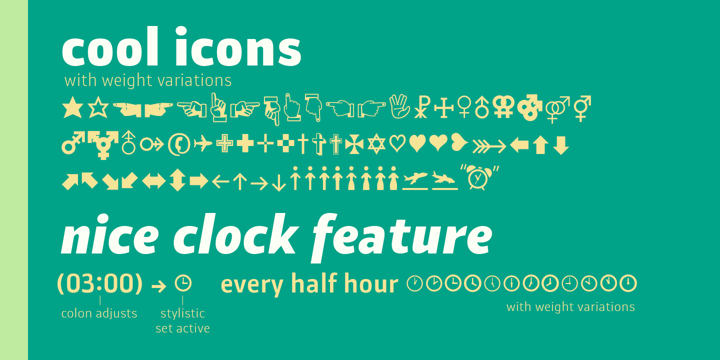
Suit Sans STD
von Just in Type
Die Schriftfamilie Suit Sans STD wurde von Diego Maldonado entworfen und von Just in Type veröffentlicht. Suit Sans STD enthält 8 Stile und Familienpaketoptionen.
Suit Sans ​STD is a typeface designed for multi-purposes with ​4 weights plus matching​ italics. The set of ​554 glyphs embraces a​ll European languages​, ​and it's perfect for branding, interfaces and everything else you could create on large and small sizes​. ​But if Suit Sans STD is not enough for you, take a look at Suit Sans Pro with extended weight range, character set and more cool features.
Designer: Diego Maldonado
Just in Type is a Brazilian type foundry that spices the world of typography. Their typefaces have samba’s movement, Carnival’s sensuality, and soccer’s precision. Founded by Tony de Marco, and later Diego Maldonado joined, merging experience and innovation to lead the creation of elegant and extremely functional typefaces. Just in Type is a pioneer in Brazilian type design.